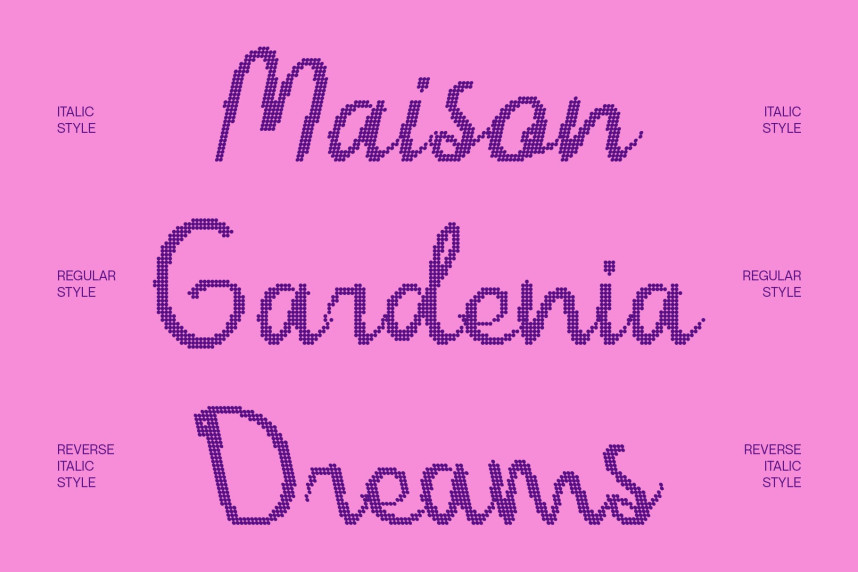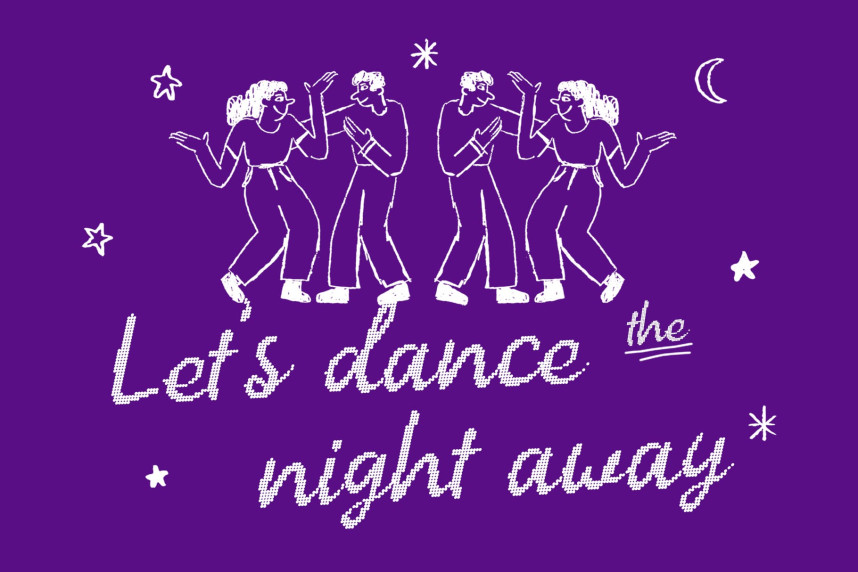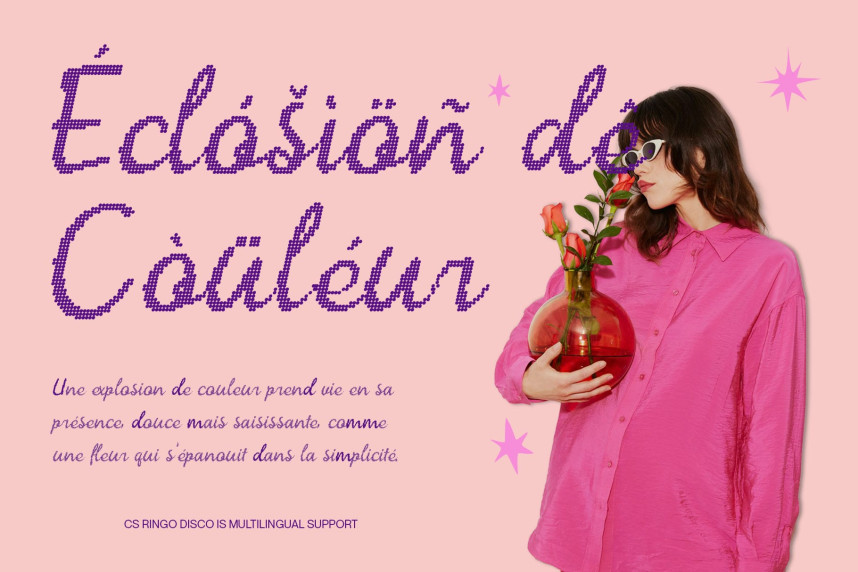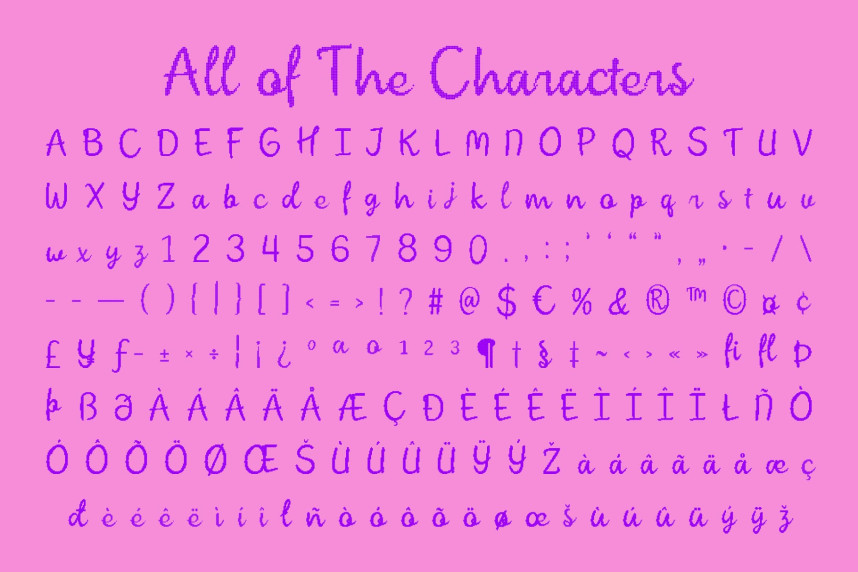
CS Ringo Disco Font
CS Ringo Disco Font – This is an Italian script font that captures the timeless beauty of Mediterranean calligraphy while adding a contemporary flair. Its flowing strokes and refined letterforms radiate elegance, every curve is carefully designed to evoke romance, creativity, and style.
What sets this font apart is its dazzling disco effect. Each character shimmers with a glamorous vibrance, making the font glow with personality. This visual sparkle gives it a celebratory energy that enhances invitations, posters, or event branding. Whether used for wedding parties or festive occasions, the disco effect ensures the design shines with unforgettable impact. Despite its decorative personality, maintains excellent readability. Its smooth Italian script foundation blends artistry with practical design, ensuring that it works well in both large headlines and detailed layouts. The balance between elegance and functionality makes it a versatile font for luxury branding, packaging, or editorial spreads.